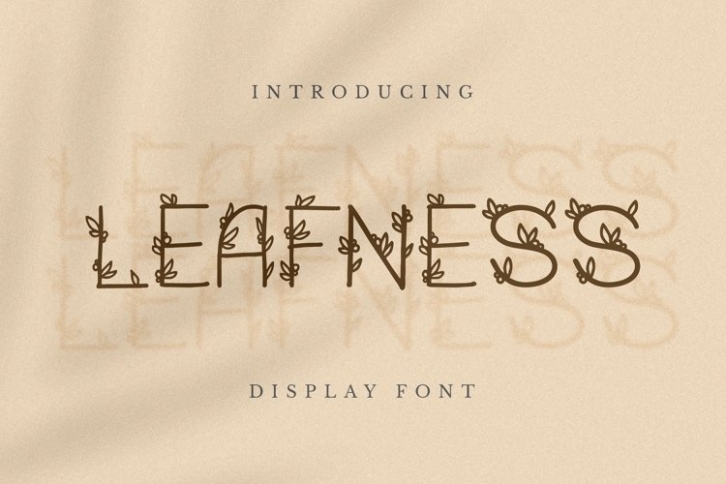
Web Leafness is a gorgeous font that was realeased on May 15, 2021. The font can be used in many style contexts and design environments. Perfect for invitations, magazines, websites, logos, and more! It was designed by plusstore and the file size is 16.42 MB. Thanks for checking out this font!